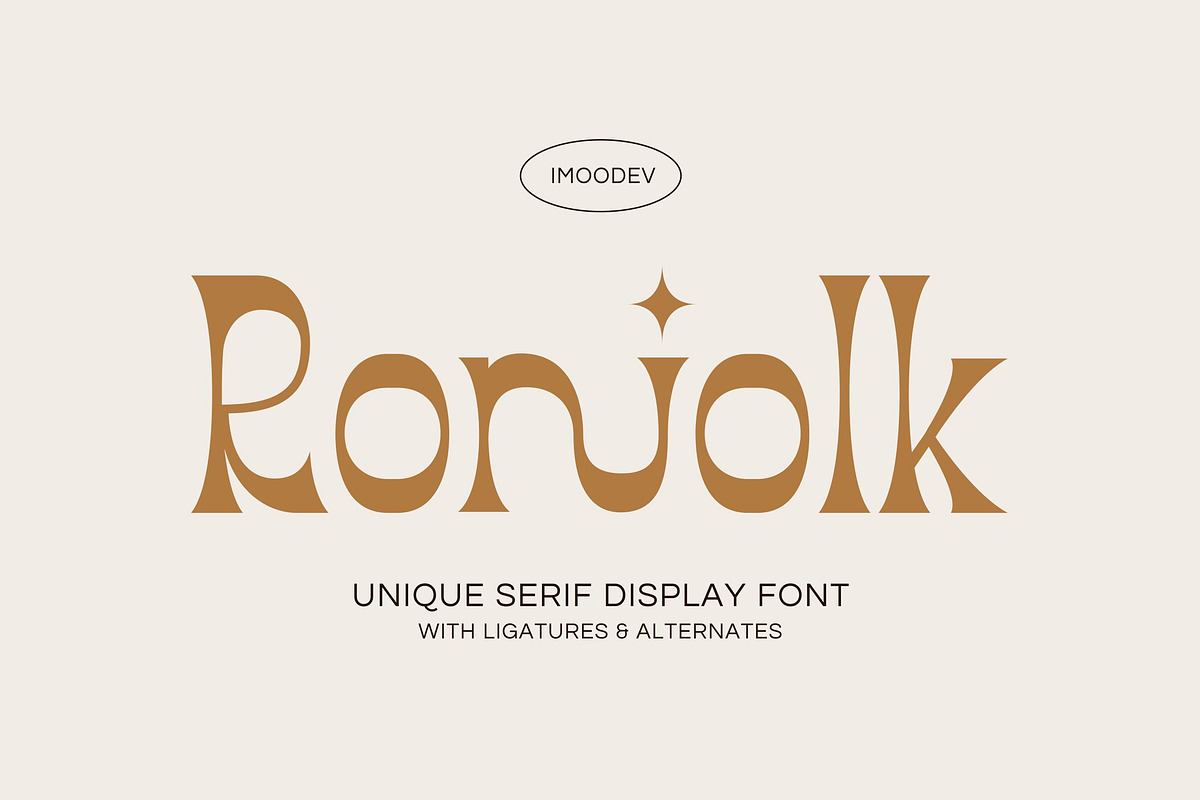
Roniolk Modern Chic Font Free Download is a stylish and elegant typeface that exudes sophistication with a contemporary edge. Perfect for fashion branding, editorial layouts, high-end packaging, and social media design, Roniolk brings a polished, trend-forward look to your creative projects.
Its refined letterforms, clean lines, and subtle curves make it ideal for both headlines and minimalist logo designs. Whether you're creating a luxury brand or a modern blog aesthetic, Roniolk offers versatility and upscale flair.